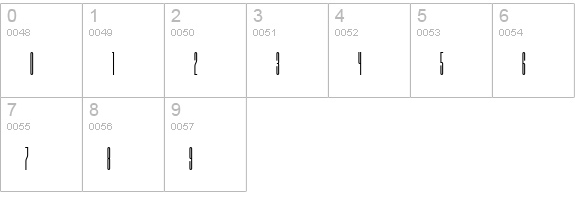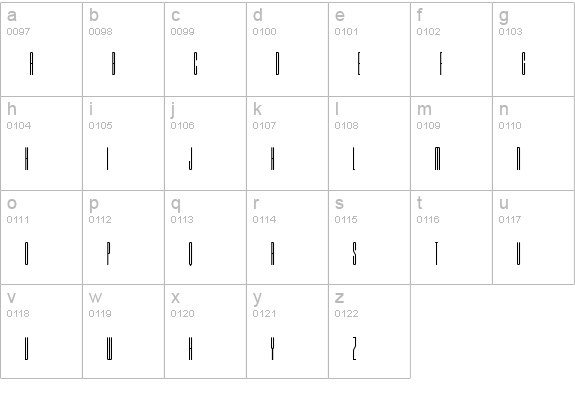
Barcode-Two Font Details
Barcode-Two font is a sleek and modern typeface designed specifically for creating barcodes. With its clean lines and easy readability, Barcode-Two is perfect for labeling products, organizing inventory, or adding a unique touch to your designs. This versatile font is available for free and can be downloaded at FontsMarket.com. Whether you're a designer looking to add a professional touch to your work or a business owner in need of a reliable barcode font, Barcode-Two is the perfect choice. Stand out from the crowd with this user-friendly and visually striking font that is both functional and stylish. Download Barcode-Two today and take your projects to the next level.